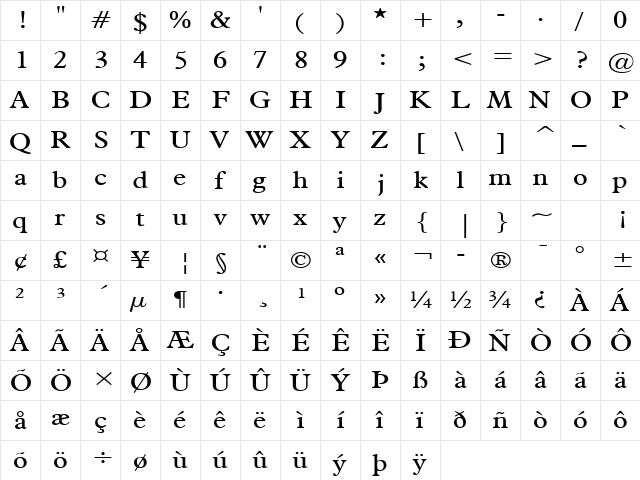
Nadine Wide Normal
Design Context for Nadine Wide Typeface
Nadine Wide takes a measured approach to typography — its balanced proportions and neutral character make it a reliable workhorse for both digital and print work.
Pro Tip: Use Nadine Wide in both headline and body roles to test its range before committing to a single application.